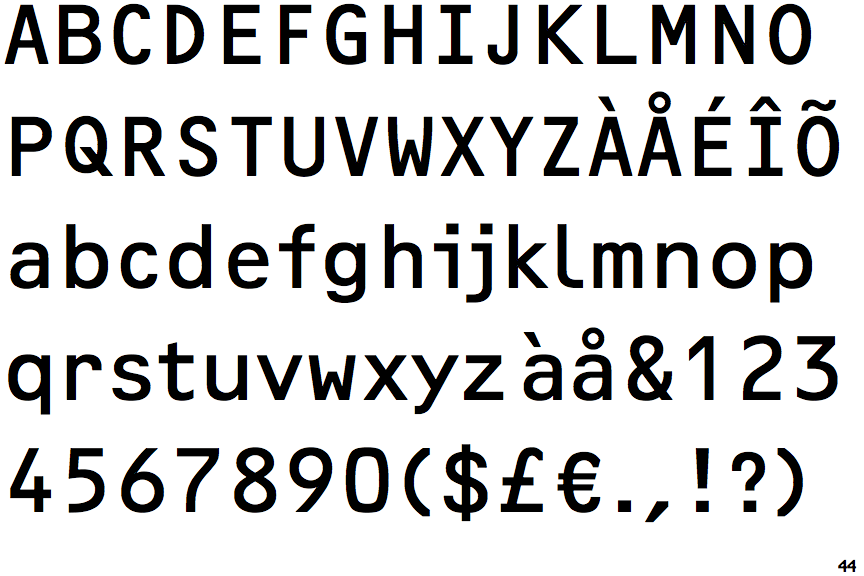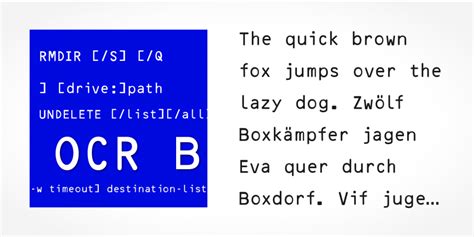
Ocr B Font
Ocr B Font - 887 views, 77 downloads, 0 comment (s) this fonts are. Free for commercial use, ofl. Adobe fonts is the easiest. July 22, 2020 featured in sans serif. Web explore ocr b designed by adrian frutiger at adobe fonts. A monospaced typeface with 1 style, available from adobe fonts for sync and web use.
887 views, 77 downloads, 0 comment (s) this fonts are. Web explore ocr b designed by adrian frutiger at adobe fonts. July 22, 2020 featured in sans serif. Adobe fonts is the easiest. Free for commercial use, ofl. A monospaced typeface with 1 style, available from adobe fonts for sync and web use.
887 views, 77 downloads, 0 comment (s) this fonts are. Free for commercial use, ofl. Adobe fonts is the easiest. Web explore ocr b designed by adrian frutiger at adobe fonts. July 22, 2020 featured in sans serif. A monospaced typeface with 1 style, available from adobe fonts for sync and web use.
Web explore ocr b designed by adrian frutiger at adobe fonts. 887 views, 77 downloads, 0 comment (s) this fonts are. Adobe fonts is the easiest. Free for commercial use, ofl. A monospaced typeface with 1 style, available from adobe fonts for sync and web use.
887 views, 77 downloads, 0 comment (s) this fonts are. Free for commercial use, ofl. A monospaced typeface with 1 style, available from adobe fonts for sync and web use. Web explore ocr b designed by adrian frutiger at adobe fonts. July 22, 2020 featured in sans serif.
887 views, 77 downloads, 0 comment (s) this fonts are. Free for commercial use, ofl. Web explore ocr b designed by adrian frutiger at adobe fonts. A monospaced typeface with 1 style, available from adobe fonts for sync and web use. July 22, 2020 featured in sans serif.
Web explore ocr b designed by adrian frutiger at adobe fonts. Free for commercial use, ofl. 887 views, 77 downloads, 0 comment (s) this fonts are. A monospaced typeface with 1 style, available from adobe fonts for sync and web use. July 22, 2020 featured in sans serif.
Adobe fonts is the easiest. Web explore ocr b designed by adrian frutiger at adobe fonts. July 22, 2020 featured in sans serif. 887 views, 77 downloads, 0 comment (s) this fonts are. Free for commercial use, ofl.
July 22, 2020 featured in sans serif. A monospaced typeface with 1 style, available from adobe fonts for sync and web use. Adobe fonts is the easiest. 887 views, 77 downloads, 0 comment (s) this fonts are. Free for commercial use, ofl.
Web explore ocr b designed by adrian frutiger at adobe fonts. A monospaced typeface with 1 style, available from adobe fonts for sync and web use. 887 views, 77 downloads, 0 comment (s) this fonts are. Free for commercial use, ofl. Adobe fonts is the easiest.
Web explore ocr b designed by adrian frutiger at adobe fonts. Adobe fonts is the easiest. A monospaced typeface with 1 style, available from adobe fonts for sync and web use. 887 views, 77 downloads, 0 comment (s) this fonts are. Free for commercial use, ofl.
Web explore ocr b designed by adrian frutiger at adobe fonts. July 22, 2020 featured in sans serif. Free for commercial use, ofl. 887 views, 77 downloads, 0 comment (s) this fonts are. A monospaced typeface with 1 style, available from adobe fonts for sync and web use.
Web explore ocr b designed by adrian frutiger at adobe fonts. A monospaced typeface with 1 style, available from adobe fonts for sync and web use. July 22, 2020 featured in sans serif. Adobe fonts is the easiest.